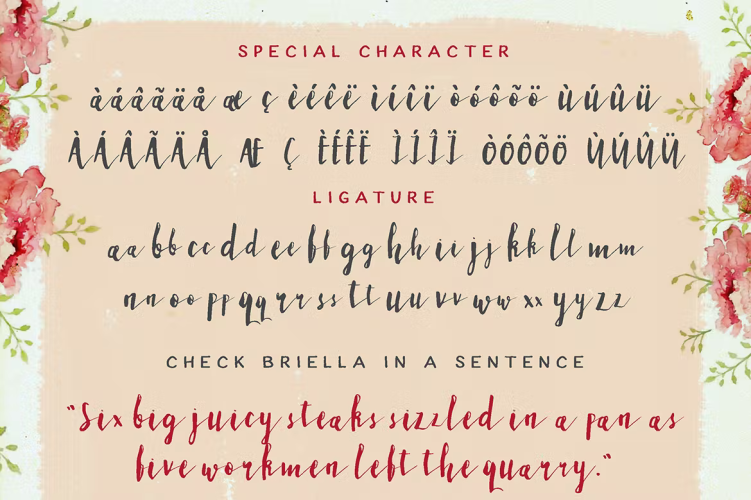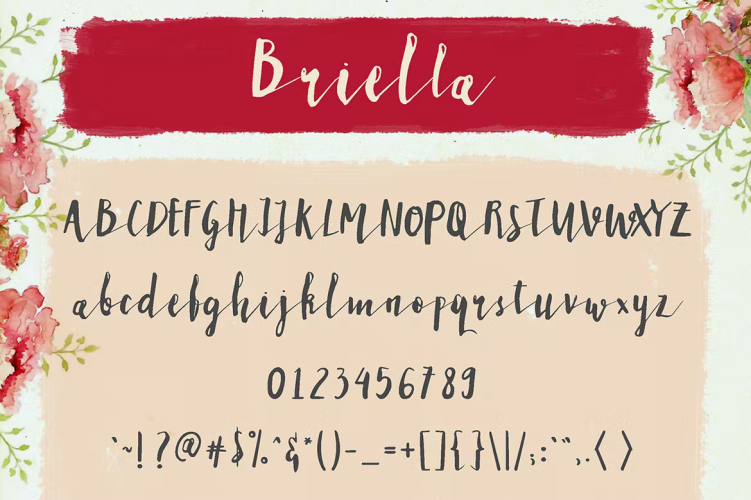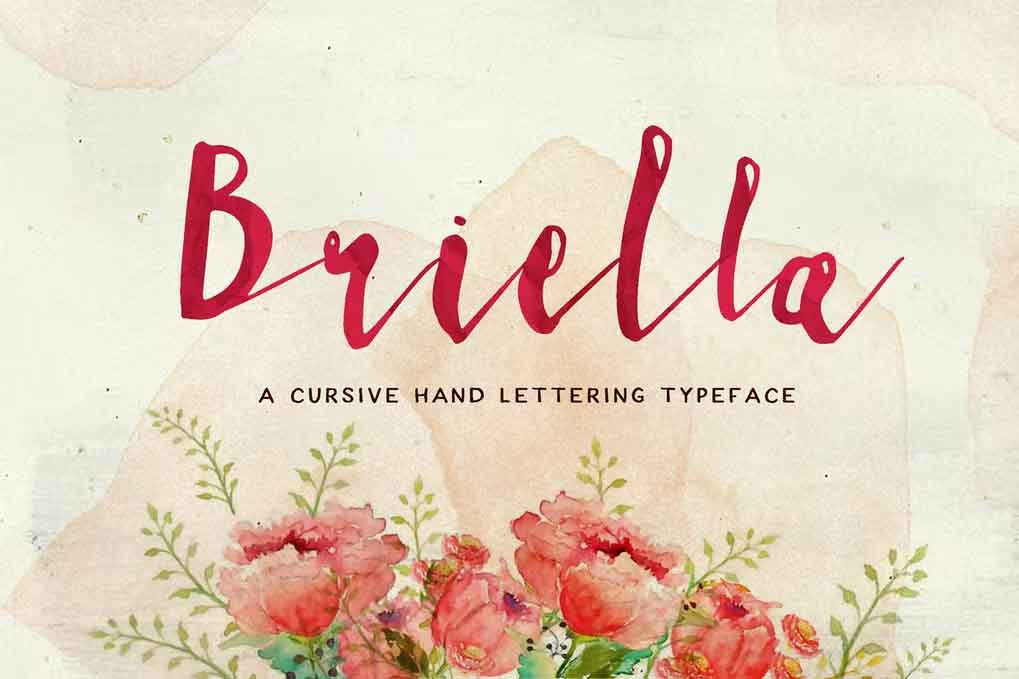
Briella Font
Briella is a feminine and simple cursive script font. Created based on hand lettering style, Briella is best for: wedding invites, birthday cards and greetings, poster,…
Briella is a feminine and simple cursive script font. Created based on hand lettering style, Briella is best for: wedding invites, birthday cards and greetings, poster, return address, signature, branding work, logo and tons more.